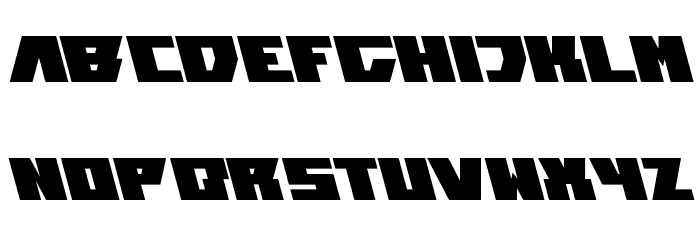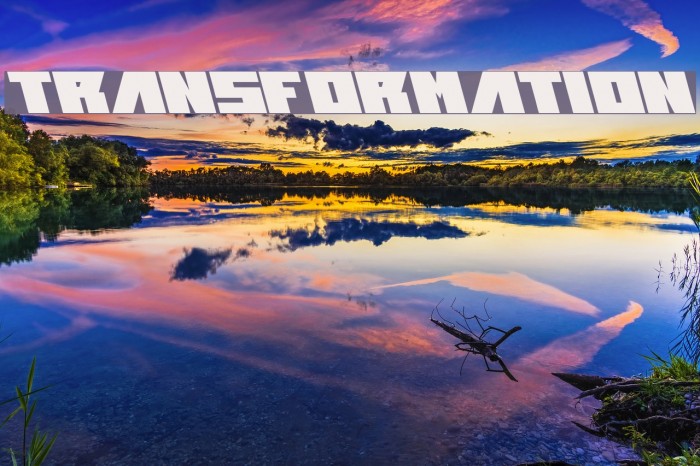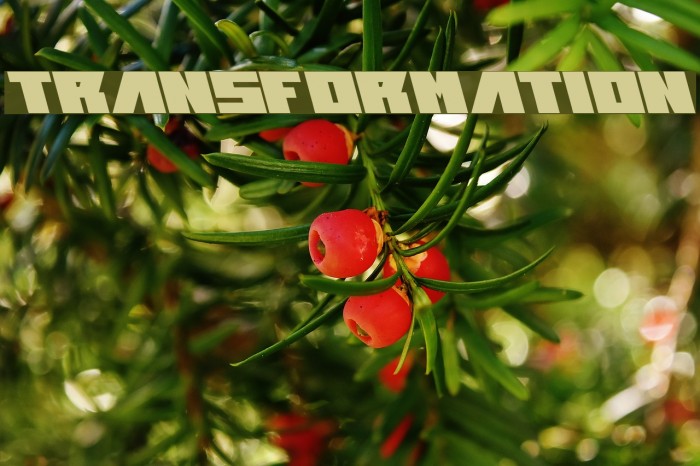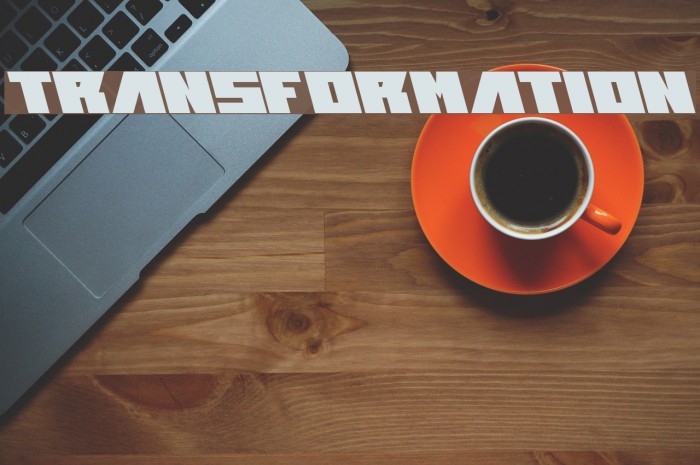
transformation Font
This font features a bold, geometric design with sharp angles and a futuristic aesthetic. The characters are constructed with thick, block-like shapes that give it a strong presence. The uppercase letters are particularly striking, with a uniform height and width that create a cohesive look. The font's style is reminiscent of digital or sci-fi themes, making it ideal for projects that require a modern and edgy appearance. The absence of curves and the emphasis on straight lines contribute to its distinctive, mechanical feel. This font is well-suited for headlines, logos, and any design that aims to capture attention with a bold statement.
A bold, geometric font with a futuristic and edgy design.
- Proposed Projects: Ideal for sci-fi themed posters, video game titles, tech company logos, and modern branding materials.
- Overall Style: Futuristic